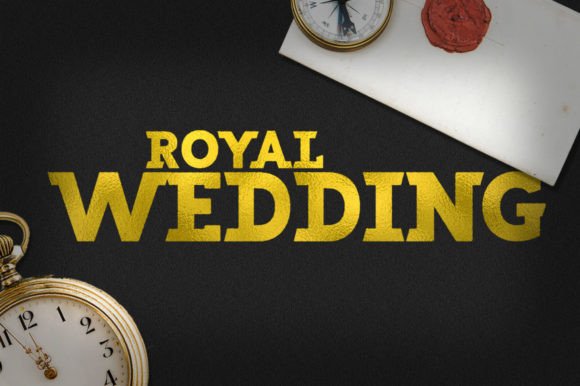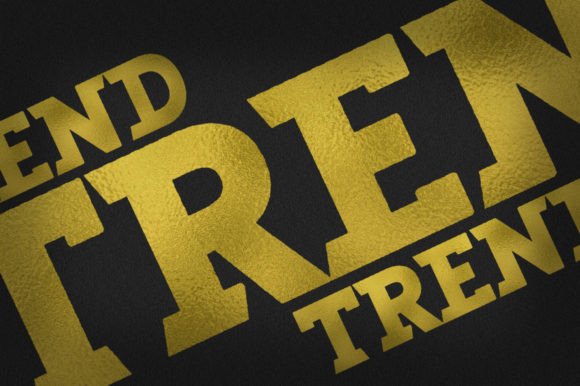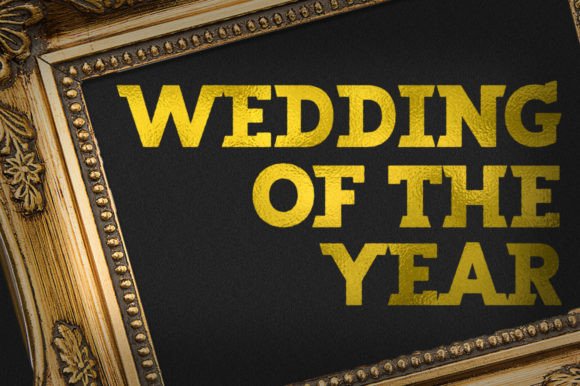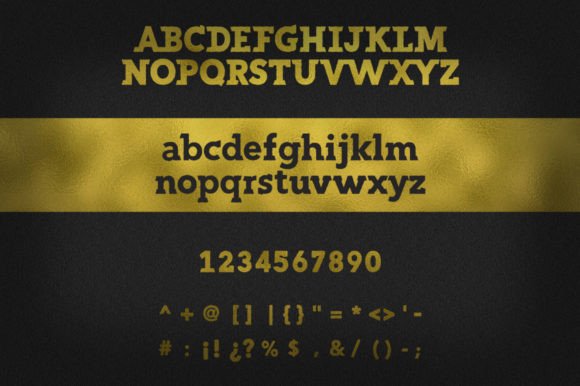
Introduction to Luxe Font
As designers, we’ve all been there – staring at a blank canvas, trying to bring our creative vision to life. The perfect font can be the missing piece that takes our project from good to great. For those seeking a touch of sophistication and elegance, the Luxe Font is an ideal choice. This classy serif font boasts a neat and stylish appearance that makes it incredibly versatile and suitable for a wide range of applications.
With the Luxe Font, designers can elevate their creative projects to new heights. Whether you’re working on a high-end brand identity, a luxurious brochure, or a stunning website, this font is sure to make a lasting impression. Its high-quality design makes it a valuable resource for any designer looking to add a touch of luxury to their work.
Key Features of Luxe Font
- Includes a large character set with over 1000 glyphs
- Unique characteristics include elegant lines, sophisticated curves, and a luxurious feel
Honest Review: Luxe Font
I recently stumbled upon the Luxe Font and I must say it’s a game-changer for any creative project. As a designer, I’m always on the lookout for high-quality design resources, and this font definitely delivers.
One of the things that stands out about the Luxe Font is its versatility. It’s perfect for both digital and print projects, and it’s easy to use even for beginners. The font comes in a variety of styles, from sleek and modern to elegant and sophisticated, making it a great addition to any design arsenal.
Here are some of the things that work well about the Luxe Font:
- ✨ High-quality design: The Luxe Font is meticulously crafted with attention to detail, resulting in a truly high-quality design.
- ✨ Versatile: The font can be used for a wide range of creative projects, from logos and branding to digital and print materials.
However, there are a few limitations to be aware of:
- ⚠️ Limited customization options: While the Luxe Font is versatile, it may not be the best choice for projects that require extensive customization.
Overall, I’m impressed with the Luxe Font and would highly recommend it to any designer looking for a high-quality, versatile font. With its sleek designs and free download option, it’s a valuable addition to any design resource library.
Luxe Font
Luxe Font is a high-quality design resource that can elevate your creative projects to the next level. With its transparent background and sleek design, this font is perfect for adding a touch of sophistication to your work.
To get the most out of Luxe Font, use it in combination with other design elements such as graphics and textures. This will help create a cohesive and visually appealing design.
Luxe Font is commonly used in various design projects such as logos, business cards, and brochures. Its high-quality design and transparent background make it perfect for adding a touch of elegance to your work.